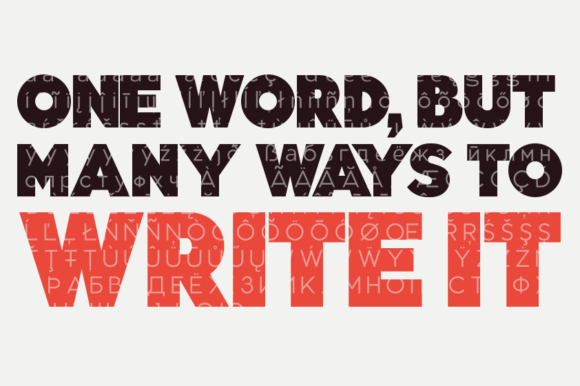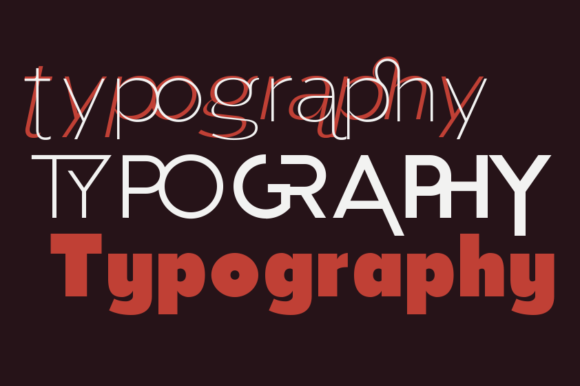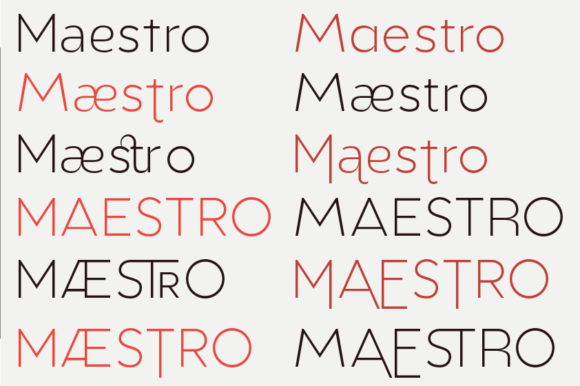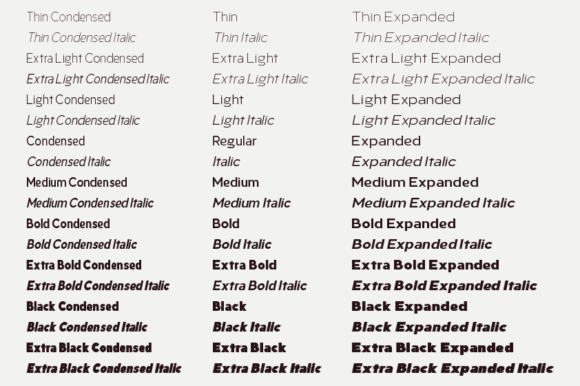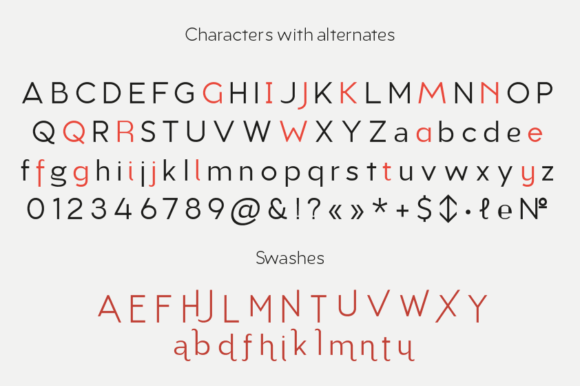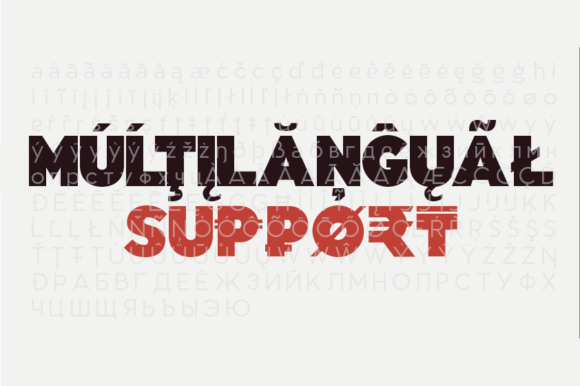
Unlock the Power of Aukim Font in Your Next Creative Project
Remember the moment when a spark of creativity hits you, and you know exactly what you want to create? It’s that feeling of excitement and possibility that drives us to push the boundaries of our imagination. For designers, this moment often comes when we’re searching for the perfect font to bring our ideas to life. That’s where Aukim Font comes in – a cool, bold, and fun display font that’s sure to make your projects stand out.
Aukim Font is more than just a font – it’s a tool to help you express your unique style and add a touch of personality to your work. With its versatility and wide range of applications, Aukim Font is a valuable asset for designers looking to elevate their creative projects. Whether you’re working on a logo, poster, or social media campaign, Aukim Font is sure to make a lasting impression.
Aukim Font Key Features
- Unique Characteristics: Aukim Font features a unique blend of modern and traditional design elements, making it suitable for a wide range of applications, from digital media to print materials.
- Font Styles: Aukim Font comes in multiple styles, including Regular, Bold, Italic, and Bold Italic, providing designers with flexibility and options for creating visually appealing content.
- Language Support: Aukim Font supports a wide range of languages, including Latin, Cyrillic, and Greek alphabets, making it a versatile font for global communication and design projects.
Aukim Font Review
I recently had the chance to work with Aukim Font, and I must say it’s a mixed bag. Here are my thoughts.
- Aukim Font is highly customizable, making it perfect for designers who want to create unique and personalized typography.
- The font is available in a range of weights and styles, from light to bold, which makes it suitable for various design projects.
- The font is well-suited for digital applications, such as web design and mobile apps, thanks to its clear and legible design.
- The font may not be the best choice for print design, as it can appear somewhat thin and fragile on paper.
- The font’s aesthetic may not appeal to everyone, as it has a somewhat unusual and quirky design.
- The font’s versatility is somewhat limited by its lack of support for non-Latin scripts.
Aukim Font is a decent choice for designers who want a highly customizable and digital-friendly font. However, its limitations may make it less suitable for certain projects, such as print design or designs that require support for non-Latin scripts. Overall, I would recommend Aukim Font for designers who are looking for a unique and adaptable font for their digital projects.
Getting the Most Out of Aukim Font
For optimal results, use Aukim Font in combination with bold or italic styles to create visual emphasis.
Experiment with different font sizes and colors to achieve the desired visual impact.
Aukim Font is ideal for:
1. Headings and titles.
2. Logos and branding materials.
3. Creative and artistic projects.
Alternatives to Aukim Font
Aukim Font is a sans-serif font known for its modern and clean look. Here are a few alternatives that designers can consider.
Open Sans is a popular sans-serif font that is highly legible and suitable for digital interfaces. It is a great choice for body text and headings. Open Sans has a similar feel to Aukim Font but with a slightly more rounded and friendly appearance. Use Open Sans for digital products, websites, and mobile applications.
Montserat is a sans-serif font inspired by urban typography. It has a strong and modern feel, making it perfect for headlines and titles. Montserrat is more geometric than Aukim Font and has a stronger grid-based structure. Use Montserrat for branding, advertising, and editorial content.